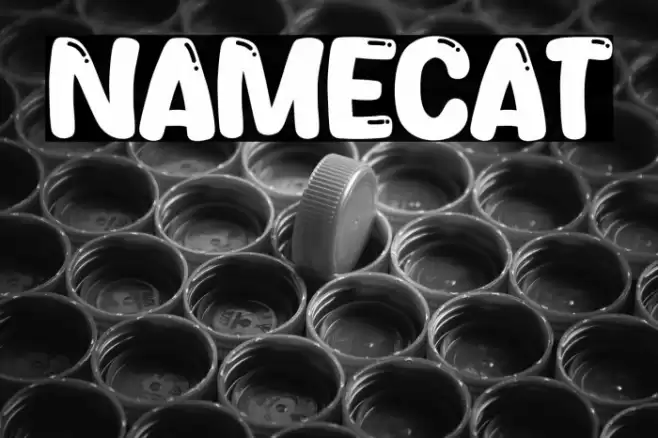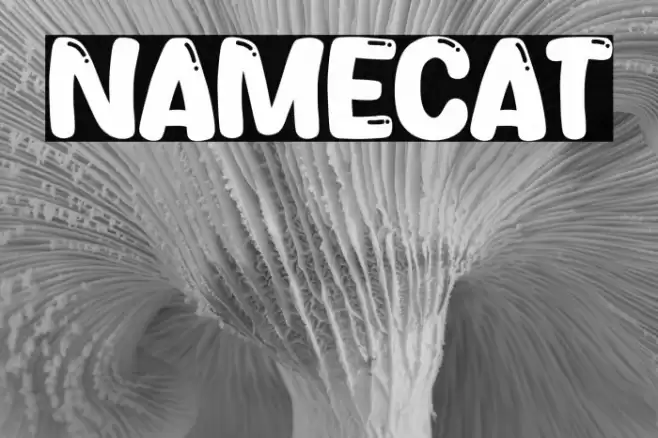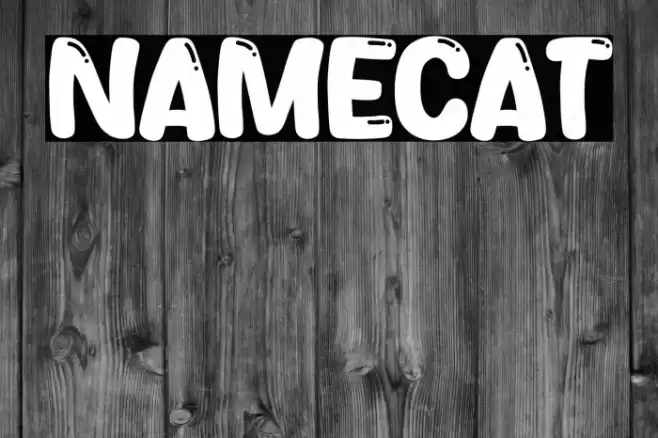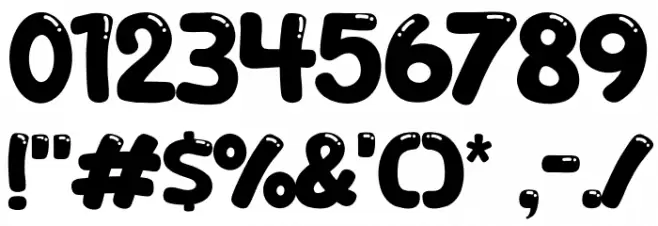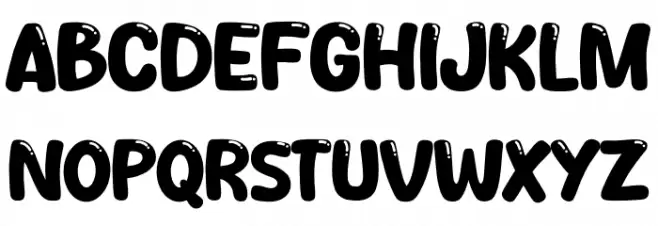
Namecat Font
Namecat Description
This playful and bold font features rounded, bubbly characters that exude a sense of fun and whimsy. The letters are thick and substantial, with a consistent stroke width that gives them a cartoonish and approachable appearance. The rounded edges and slightly irregular shapes add to the font's charm, making it ideal for projects that require a friendly and informal touch. The numbers and special characters maintain the same playful style, ensuring consistency across all text elements. This font is perfect for children's books, playful branding, or any design that aims to convey a sense of joy and creativity.
A playful, bold font with rounded, bubbly characters perfect for fun and informal designs from Uncategorized fonts.
- Proposed Projects: Children's books, playful branding, party invitations, comic strips, and educational materials.
- Overall Style: Playful, Cartoonish, Fun
- Use Case: Headlines, Logos, Posters, Children's materials